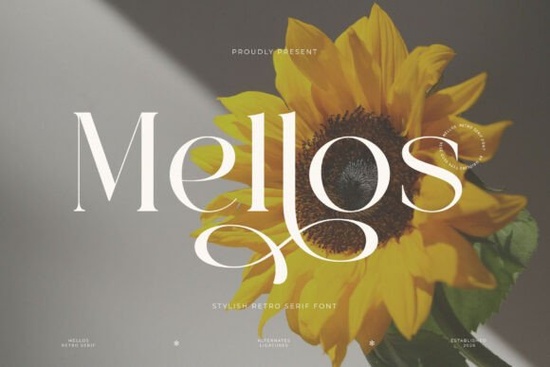
If you're searching for a display serif typeface that feels both polished and expressive, the Mellos font delivers exactly that. With its razor-sharp serifs, clean structural lines, and graceful calligraphic loops on the lowercase descenders, it strikes a rare balance between mid-century editorial elegance and modern luxury branding. Whether you're designing wedding stationery, wine labels, or social media graphics, Mellos gives your work a confident, high-end look without feeling stiff or outdated.
What Kind of Projects Is Mellos Best Suited For?
Mellos shines brightest in projects where elegance and readability need to coexist. Its high-contrast letterforms and sweeping details make it a natural fit for:
- Luxury winery packaging the sharp serifs and refined curves complement wine label aesthetics beautifully.
- Boutique fashion logos it carries a model lookbook confidence that works well for independent clothing brands.
- Organic cosmetic labels clean structural lines paired with romantic details suit skincare and beauty products perfectly.
- Bespoke wedding stationery the calligraphic loops add warmth without sacrificing sophistication.
- Social media headlines its bold, high-contrast design grabs attention in fast-scrolling feeds.
If you work in print-on-demand, this typeface can elevate your mug designs, tote bags, and poster templates with a premium feel that customers notice.
How Does Mellos Compare to Other Elegant Serif Fonts?
There are plenty of elegant serifs out there, but not all of them nail the same combination of sharpness and grace. For instance, another stylish serif option with a distinct personality leans more into decorative territory, which works great for certain logos but can feel heavy in body-sized text.
Mellos, on the other hand, keeps things clean. Its structural lines are precise, and the high-contrast strokes give it an editorial quality that feels right at home in fashion magazines and luxury branding. The lowercase descenders those sweeping loops on letters like g, j, and y are the standout feature. They add a subtle calligraphic touch without going full script font.
If you're drawn to vintage-inspired serif typefaces with romantic flair, you'll likely appreciate what Mellos brings to the table. It has that same timeless sensibility but with a cleaner, more contemporary execution.
Is Mellos a Good Choice for Small Businesses?
Absolutely. One of the biggest challenges small businesses face is finding a typeface that looks expensive without the custom commission price tag. Mellos fills that gap. It reads as a premium display serif the kind you'd expect from a professional brand identity package but it's accessible enough for anyone to use right away.
Here's where it works especially well for small brands:
- Logo design pair it with a simple sans-serif for body copy and you've got an instant brand identity.
- Product packaging cosmetics, candles, artisan foods, and beverages all benefit from its refined look.
- Website headers use it for hero text or section titles to create visual hierarchy.
- Email marketing a bold headline in Mellos can improve open-rate visuals in newsletter headers.
- Print materials business cards, menus, and flyers gain a polished, cohesive feel.
What Design Styles Pair Well With Mellos?
Because Mellos is a display typeface, it works best at larger sizes think headlines, logos, and featured text. For body copy, you'll want to pair it with a clean, neutral sans-serif or a simple Bagielo style serif that won't compete for attention.
Some pairing ideas that work well:
- Minimal sans-serif (like a geometric or humanist sans) for a modern, balanced look.
- Light serif with low contrast for editorial layouts where Mellos handles the headlines.
- Simple script or handwritten font for wedding stationery just keep it subtle so Mellos stays dominant.
Color-wise, Mellos looks stunning in muted earth tones, deep burgundies, forest greens, and classic black-and-white palettes. It's versatile enough to adapt to many visual styles while maintaining its refined character.
Before you drop Mellos into your next project, keep these tips in mind:
- Use it large this is a display font, so set it at 24pt or above for the best impact.
- Mind your spacing high-contrast serifs often benefit from slightly looser tracking at headline sizes.
- Pair it simply let Mellos be the star. Avoid pairing it with other ornate or decorative fonts.
- Test on mockups first drop it onto product templates to see how it feels in context before committing to a final design.